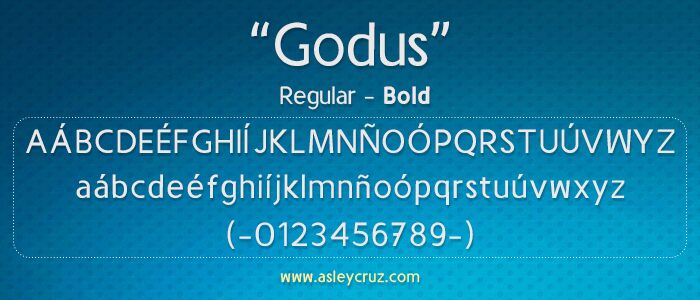
Godus Bold is a free heavy sans serif with broad, emphatic shapes and unusually soft transitions. Its rounded arches and deep curves soften firm vertical strokes, creating a sturdy, playful profile. The mixed proportions keep the line lively, especially where compact lowercase forms meet wide capitals.
A concert poster is its strongest setting, since the dense weight suits loud music and direct messaging. It also fits streetwear branding, event graphics, and snack packaging. Rounded joins and swelling curves echo inflated forms, so the lettering can become part of energetic illustration.